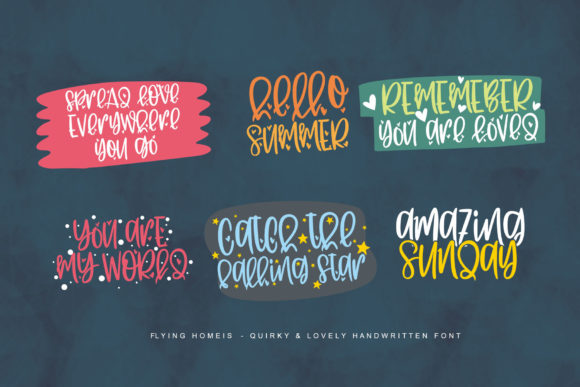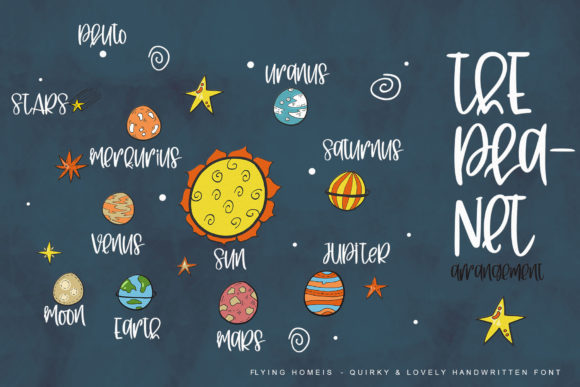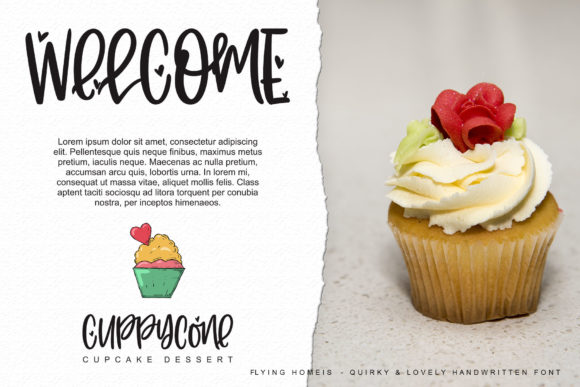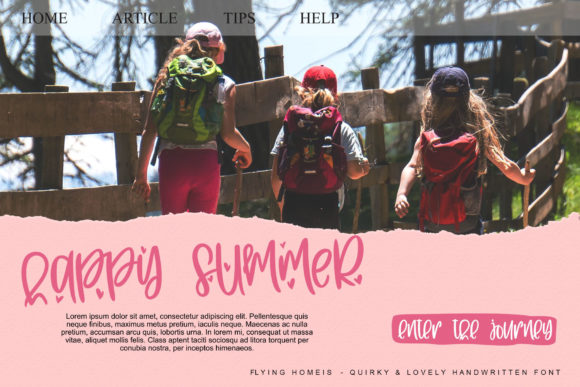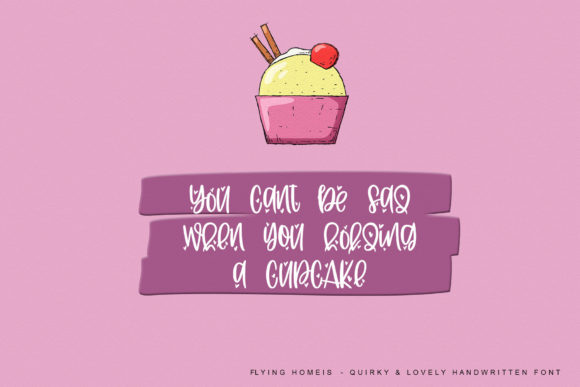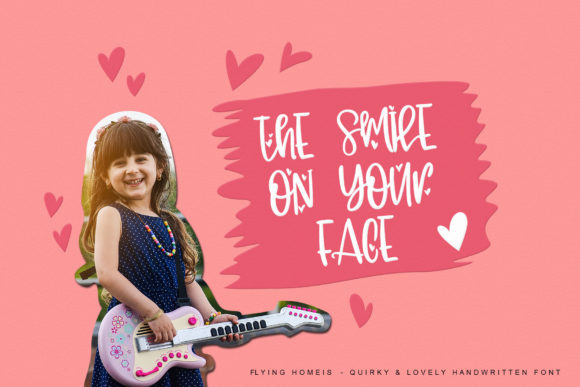
Flying Homies Font: Add a Touch of Whimsy to Your Designs
Are you tired of using the same old fonts in your designs? Look no further than the Flying Homies font, a quirky and cute handwritten font that’s sure to add a romantic touch to your creations. This charming font comes packed in two gorgeous styles, making it perfect for a wide range of design projects.
What is Flying Homies Font?
Flying Homies is a unique and authentic handwritten font that’s perfect for designers and crafters looking to add a personal touch to their work. Its quirky and cute style makes it ideal for creating beautiful wedding invitations, stationary art, social media posts, and greeting cards.
Key Features of Flying Homies Font
- Two Gorgeous Styles: Flying Homies font comes in two stunning styles, allowing you to mix and match to create unique and eye-catching designs.
- Handwritten Authenticity: This font boasts an authentic handwritten feel that’s sure to capture the hearts of your audience.
- Romantic Touch: Add a touch of romance to your designs with Flying Homies, perfect for wedding invitations, anniversary cards, and more.
- Versatile: Use Flying Homies font in a variety of design projects, from social media posts to stationary art and greeting cards.
Flying Homies font is a must-have for designers and crafters looking to add a personal touch to their work. Whether you’re creating beautiful wedding invitations, designing eye-catching social media posts, or crafting cute greeting cards, this font is sure to impress.
Use Flying Homies Font for:
- Wedding Invitations: Create stunning wedding invitations that set the tone for a romantic and memorable day.
- Stationary Art: Add a touch of whimsy to your stationary art with Flying Homies font, perfect for journals, planners, and more.
- Social Media Posts: Make your social media posts stand out with Flying Homies font, ideal for creating eye-catching graphics and quotes.
- Greeting Cards: Create cute and personalized greeting cards for special occasions, such as birthdays, anniversaries, and holidays.
Tips for Using Flying Homies Font
To get the most out of Flying Homies font, here are a few tips:
- Mix and Match: Experiment with both styles of Flying Homies font to create unique and eye-catching designs.
- Pair with Other Fonts: Pair Flying Homies font with other fonts to create a stunning contrast and add visual interest to your designs.
- Use in Combination with Images: Use Flying Homies font in combination with images to create beautiful and engaging designs.
In conclusion, Flying Homies font is a quirky and cute handwritten font that’s perfect for designers and crafters looking to add a romantic touch to their designs. With its two gorgeous styles, authentic handwritten feel, and versatility, this font is sure to become a favorite in your design arsenal. So why wait? Download Flying Homies font today and start creating stunning designs that capture the hearts of your audience!